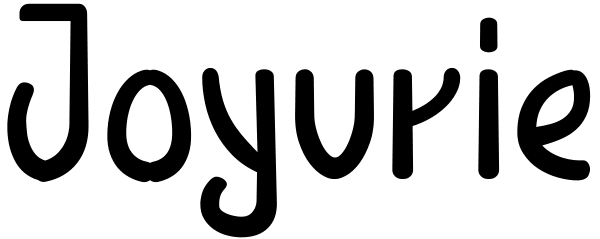
Joyvrie
Joyvrie is inspired by the rather characterful lettering to be seen on a local grocer’s blackboard. It’s lettering in the style of beautifully clear, yet individualistic, hand printing. We’re pleased to report that this particular rather splendid...